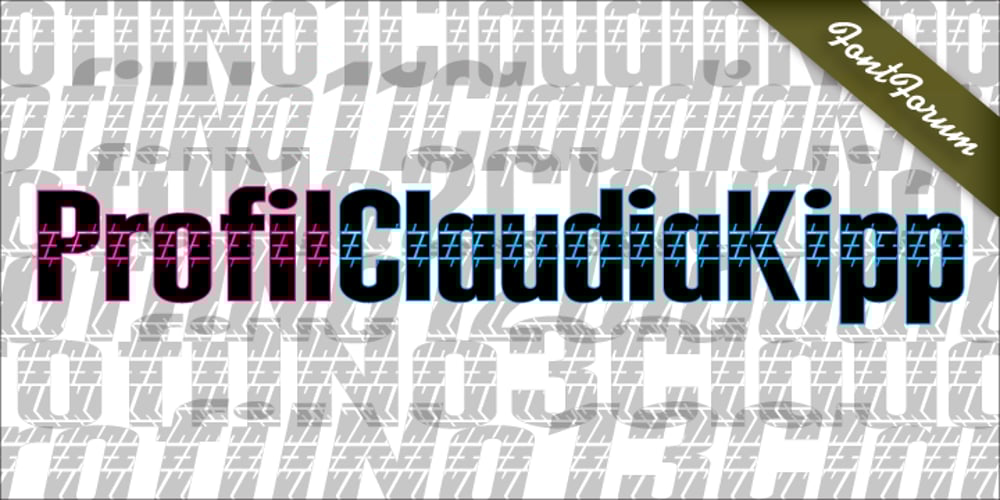
Profil Font Family was designed by Claudia Kipp and published by URW Type Foundry. Profil contains 6 styles and family package options. FontForum Profil is one of three new Display Fonts created by Berlin designer Claudia Kipp. The family comes in six styles, three roman and three italic styles, each with a different tyre tread to be used under different weather (point size) and altitude (task) conditions. Thus, it will get you safe and sound through the winter season!